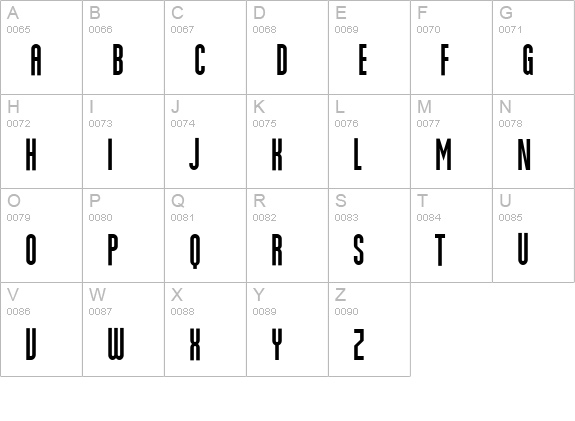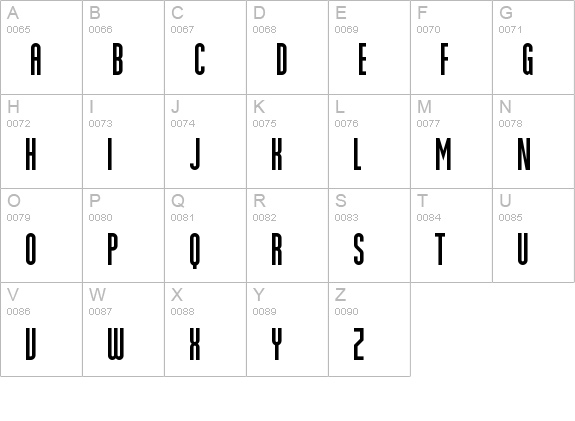
MartenCyr-Grotesque font is a stunning display of creativity and innovation. With its bold and captivating design, this font is sure to make a statement in any project or design. The distinct combination of sharp edges and unique shapes gives MartenCyr-Grotesque a truly eye-catching appeal. This font is not only visually striking but also highly versatile. It can be used in a wide range of mediums, from print to digital, making it the perfect choice for graphic designers, artists, and creatives looking to add a touch of sophistication to their work. One of the best things about MartenCyr-Grotesque font is that it is available for free. Yes, you read that right – this exceptional font can be downloaded and used without any cost. FontsMarket.com is proud to offer MartenCyr-Grotesque font as a free download, allowing anyone to access and enjoy its outstanding features. Whether you are working on a professional project, creating a personal masterpiece, or simply experimenting with different fonts, MartenCyr-Grotesque font is a must-have addition to your font collection. Its sleek and modern aesthetic will instantly elevate your designs and captivate your audience. So, why wait? Visit FontsMarket.com today and freely download MartenCyr-Grotesque font to unlock a world of design possibilities. Embrace the power of this remarkable font and let your creativity soar to new heights.